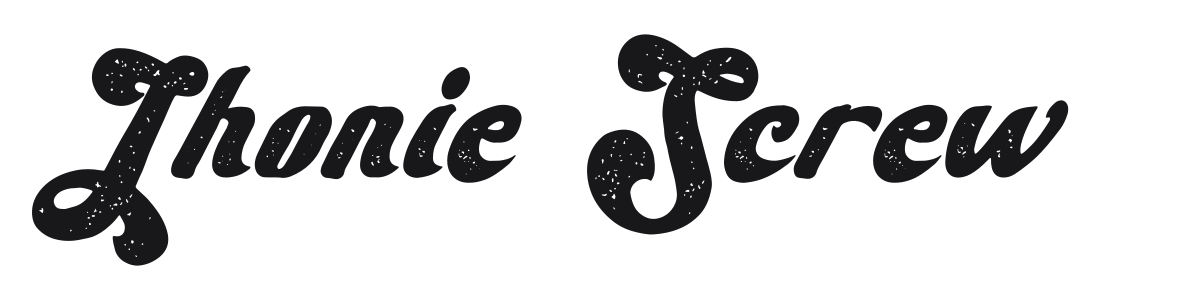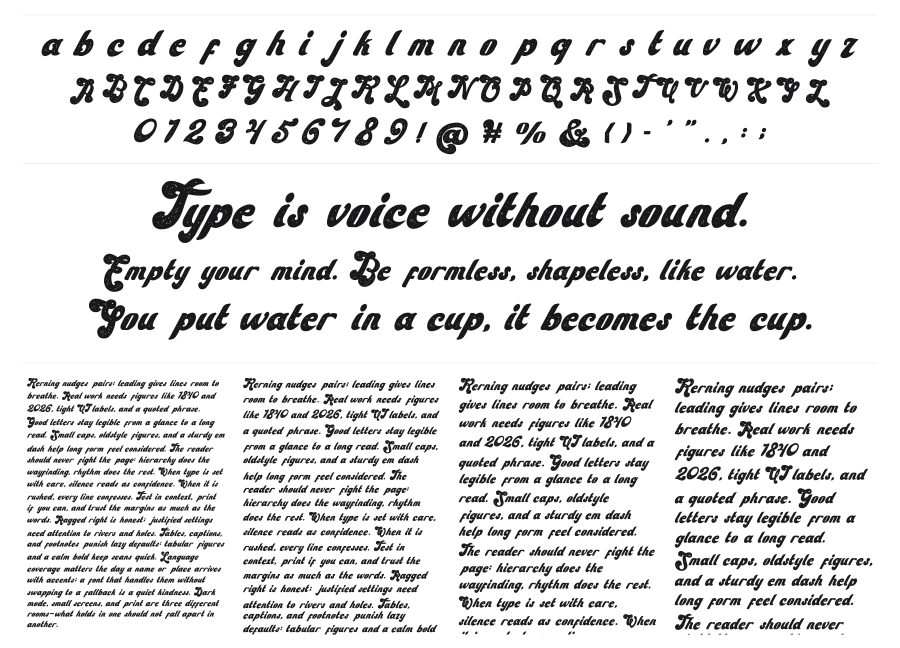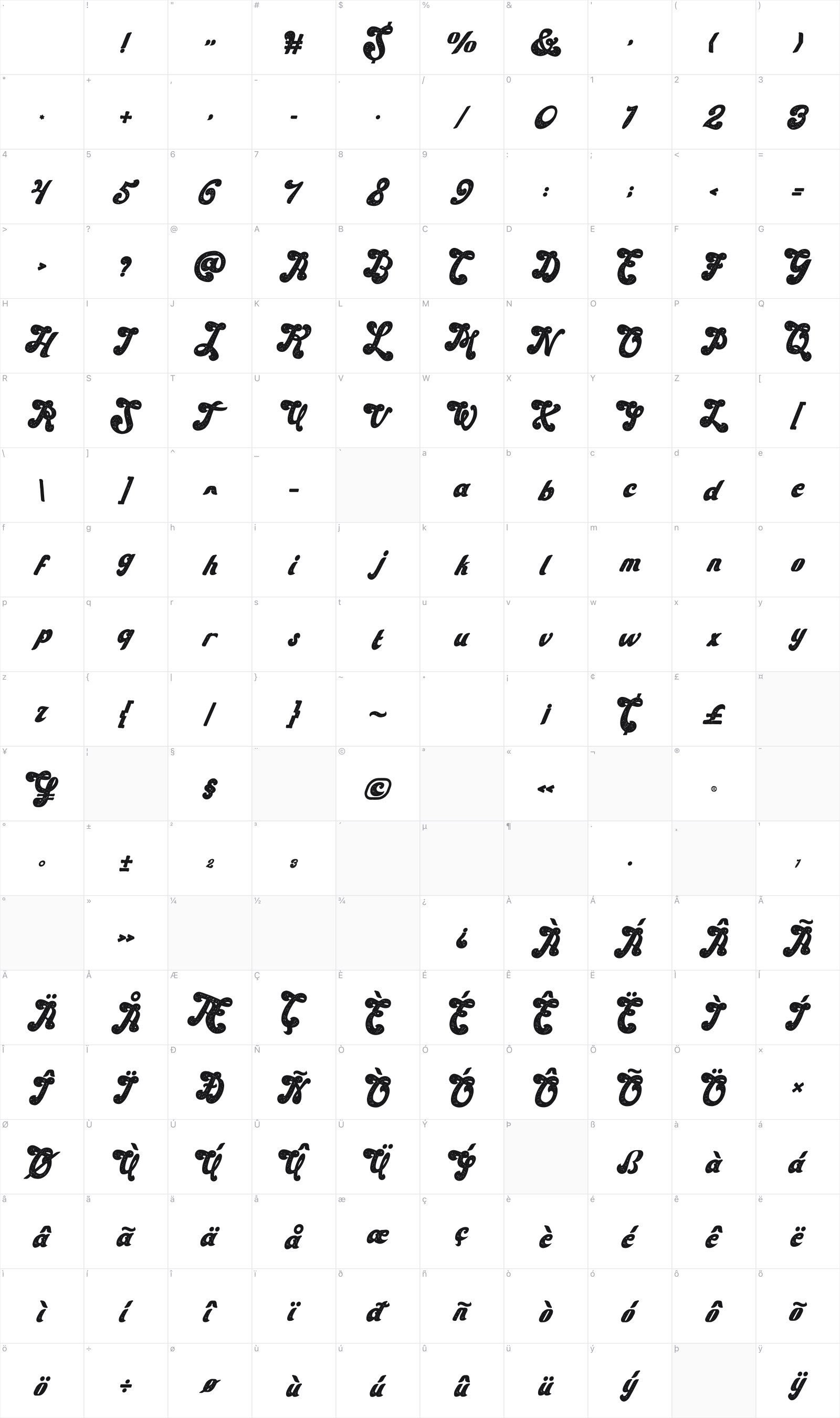
Jhonie Screw
Jhonie ScrewLicense is a bold brush script with an aggressive forward lean and heavy ink-textured strokes. The distressed surface gives it the feel of hand-painted signage from mid-century America, where every letter carries the visible drag of a loaded brush. It works loudly at large sizes in branding, posters, and packaging.